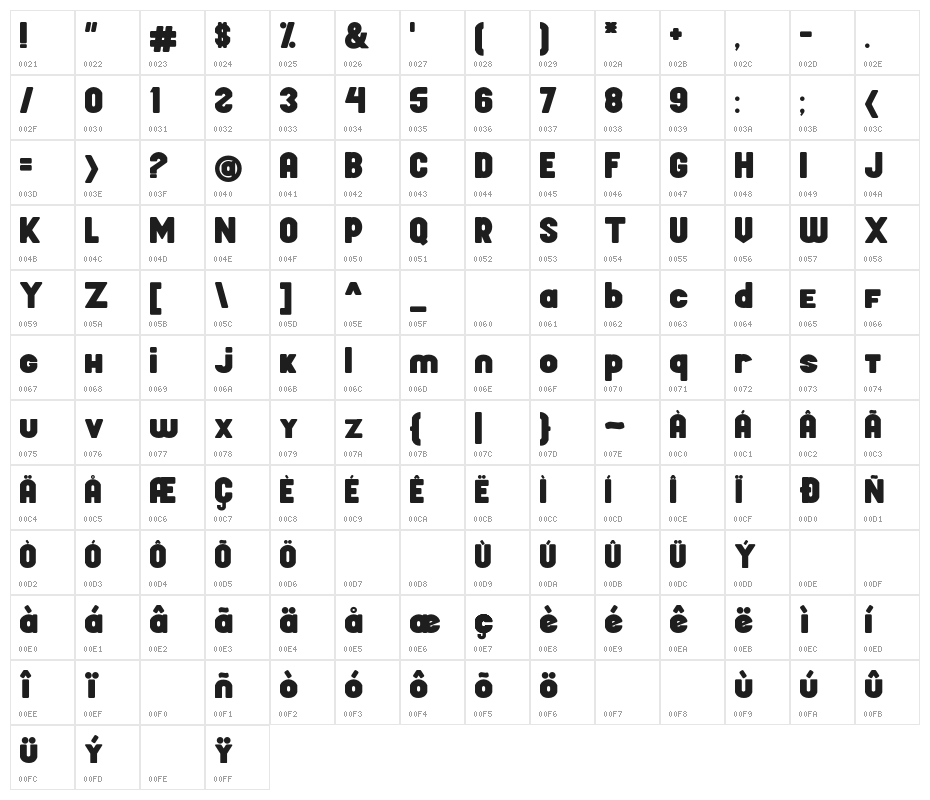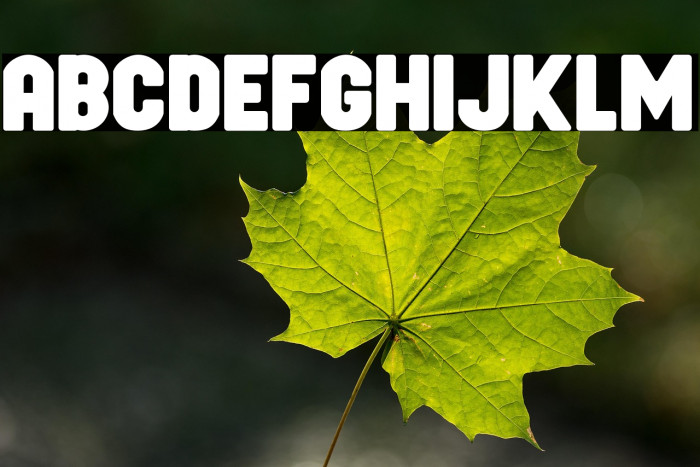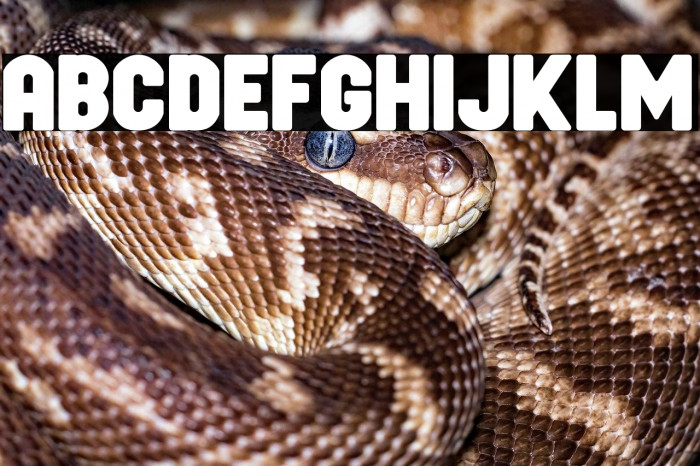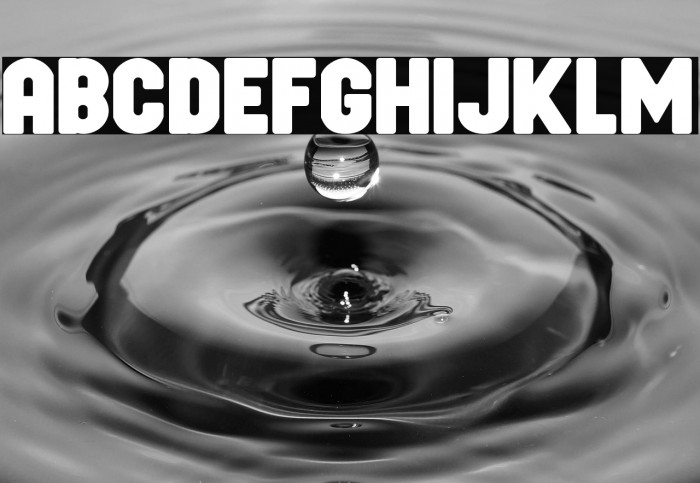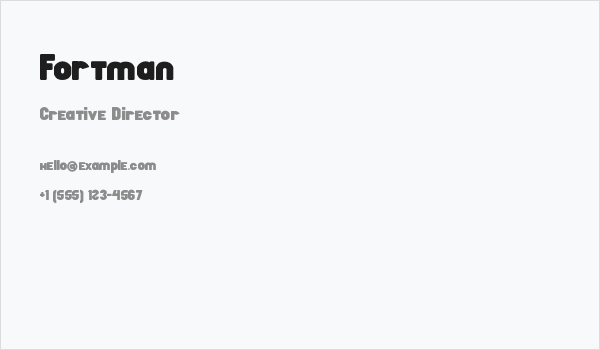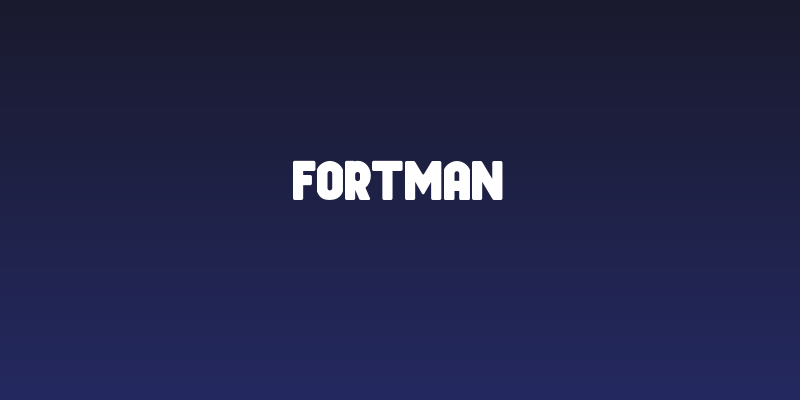
Fortman Font
Fortman Description
This font is a bold, impactful display typeface with a strong presence. The characters are rounded and thick, giving them a robust and friendly appearance. The uppercase and lowercase letters maintain a consistent weight, contributing to a cohesive look. The numbers and special characters are equally bold, ensuring they stand out in any context. The overall design is modern and playful, making it suitable for attention-grabbing headlines or branding projects. The uniformity in stroke width across all characters provides a harmonious and balanced aesthetic.
Proposed ProjectsIdeal for branding, posters, headlines, and any design requiring a strong visual impact.